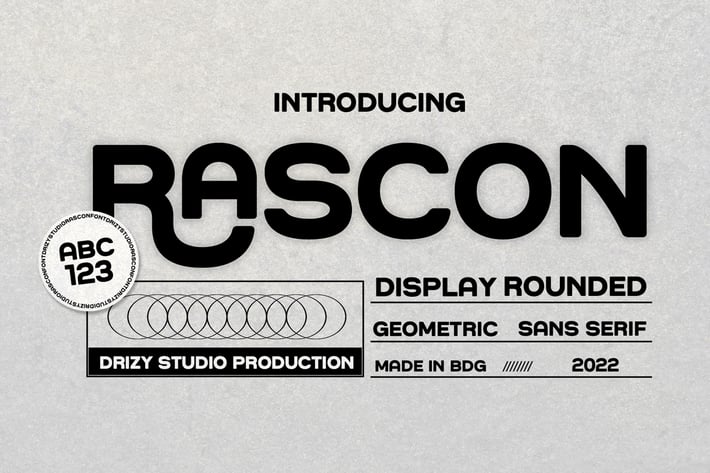
Rascon - Geometric Sans Sarif Font
Rascon is a geometric sans serif font from Drizy studio. Offering all the basic styles you will need especially modern theme project.
Rascon Features:
All Caps
Multilinguals
Ligatures
Alternates